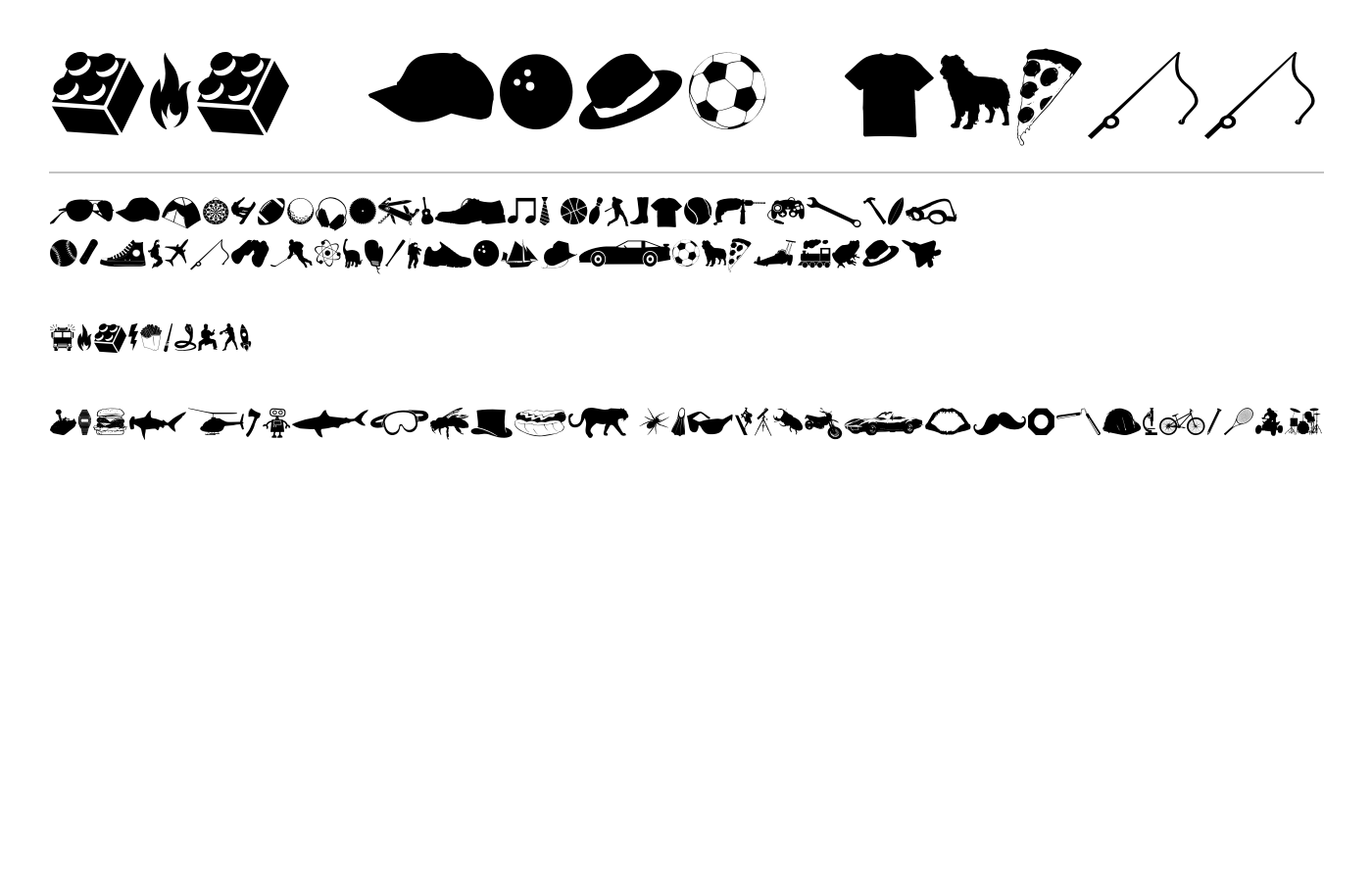
212 Boys Stuff Font is a playful symbol font filled with bold, black silhouette icons that capture a wide range of boyhood interests like sports, vehicles, animals, and hobbies. Its fun and energetic style makes it perfect for children’s designs, posters, or casual branding where a lively, adventurous tone is desired. The font’s variety of detailed pictograms ensures an engaging and dynamic visual experience.
212 Boys Stuff Font
About 212 Boys Stuff Font
| Font family | 212 Boys Stuff Font |
| Designer | Elizabeth McLain |